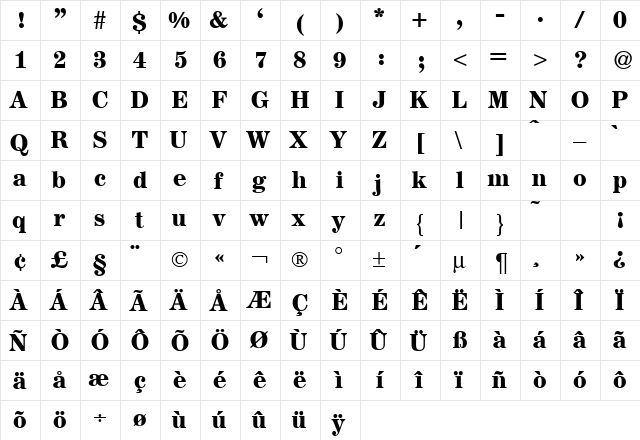
AugustMediumDB Bold
Design Context for AugustMediumDB Typeface
AugustMediumDB offers clean, dependable letterforms without strong stylistic allegiance, making it a practical choice for designers who need flexibility. The heavy weight commands attention and anchors typographic hierarchies.